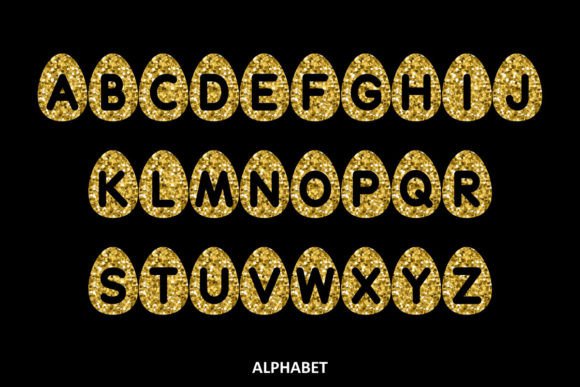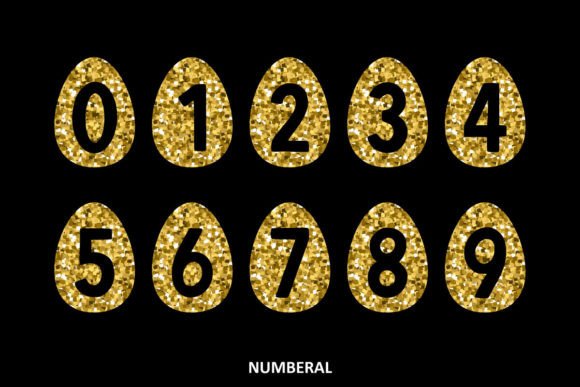
Introduction to Gold Easter Eggs Font
Introducing “Gold Easter Eggs” font with a classy touch – in the shape of eggs font.
Perfect for all of your Easter or spring designs This font adds a touch of whimsy charm to your designs.
Key Features of Gold Easter Eggs Font
Why Choose Gold Easter Eggs Font?